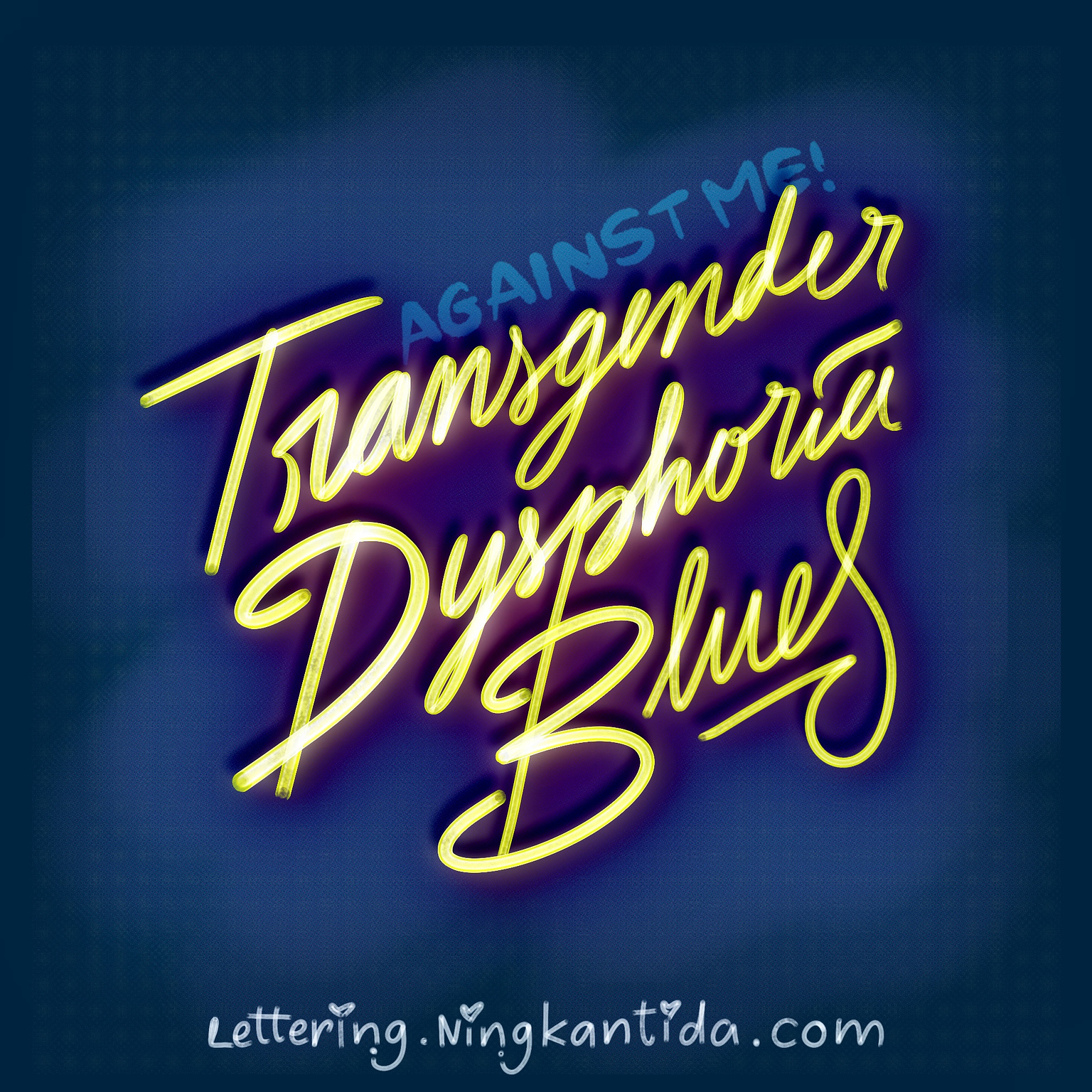
Pride Month Music 02-Transgender Dysphoria Blues by Against Me!
Music Lettering
Transgender Dysphoria Blues Lettering
As we approach the end of Pride Month, I’m creating lettering pieces celebrating music related to LGBTQIA+ community. My goal is to expose people to good music and artists while also help bringing the community filled with diversity together, since music is like a universal language that can touch anyone’s heart.
This time, we’ll discuss the song ā€œTransgender Dysphoria Bluesā€ by Against Me!—a story about the experience of gender dysphoria, particularly for transgender people. The song highlights the struggle against societal rejection and the pain of not being recognized or accepted as one’s true self. It becomes increasingly difficult to act as if you belong in this world. Some people may even exploit your insecurities, self-hatred, and self-doubt, which only deepens your dysphoria.Ā
Being misgendered is heartbreaking, but the self-hatred that can follow is even more painful.
Gender dysphoria disrupts your inner sense of self. At first, you begin questioning yourself and every decision in your life—who you should be, how you should behave. Worst of all, you may start to question your very worth: Are you truly deserving of existence? Were you somehow born wrong, not meant to exist at all? Amidst this battle with identity conflict and self-hatred, there is also a deep longing for companionship and acceptance from others.
I believe that if even one person reaches out to affirm that you are worthy of love and that it’s okay to be exactly who you are, it can make a profound difference. You don’t have to try to be anything other than yourself; simply being who you are is more than enough. While this support can help, ultimately, it is your internal dialogue—you alone—who can ease your dysphoria. The truth is, it seems almost impossible to feel loved when you cannot love yourself.
In essence, what I’m trying to say is this: every human deserves to live, to love, and to be loved. It’s okay to feel confused about your identity, as long as you recognize that life is about more than just identities.
The world can still be beautiful, even when you don’t fully understand yourself. You don’t have to figure everything out right now; you just need to remain open to the possibilities that life offers.
For this lettering, I chose a neon light style to symbolize the light that lives within you—even when you struggle to see it yourself. Your inner light can always shine brightly, no matter how much the outside world tries to cast shadows upon you. This inner glow is constant and resilient, ready to illuminate even the darkest moments—if you allow it to.